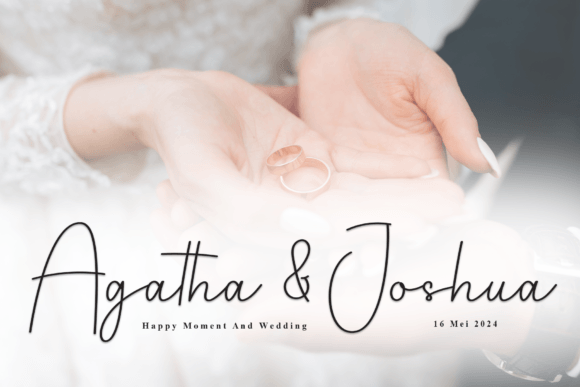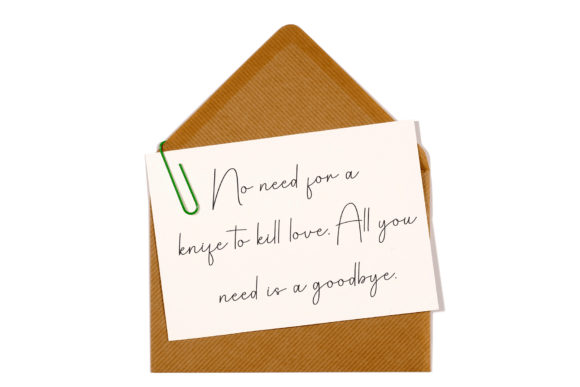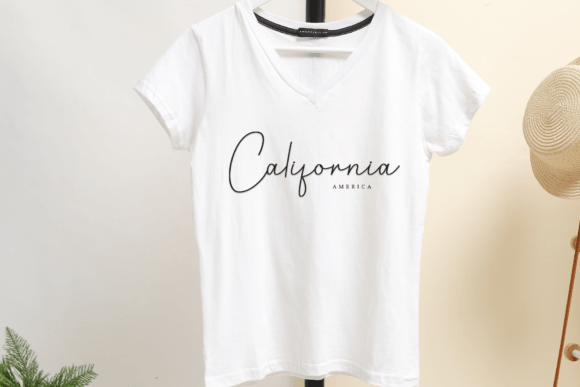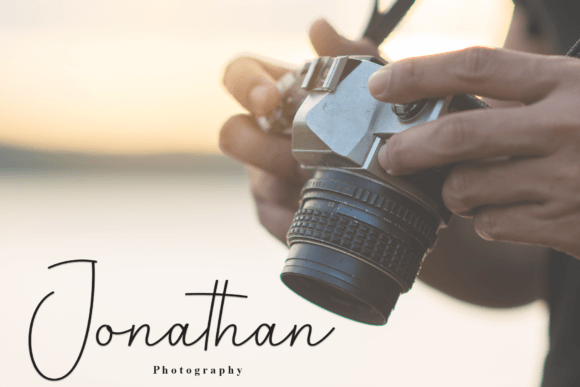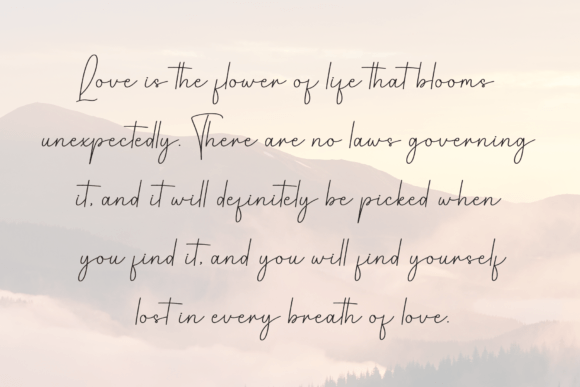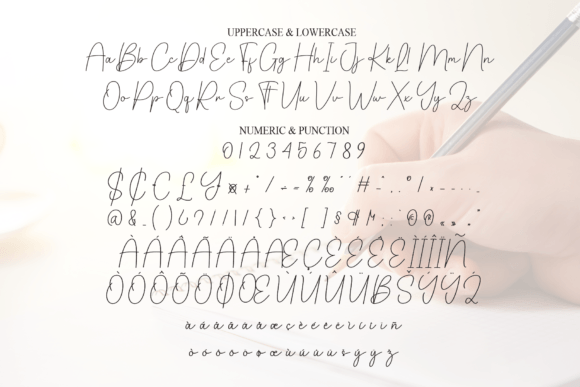
Carmila Signature Font: Elevate Your Designs with Elegant Handwriting
In the world of typography, a well-crafted font can make all the difference in elevating your designs from ordinary to extraordinary. If you’re a designer, crafter, or simply someone who appreciates the art of beautiful writing, you’ll love discovering the Carmila Signature Font. This stunning handwritten font is designed to mimic natural handwriting, bringing an air of elegance and sophistication to any project.
What is Carmila Signature Font?
Carmila Signature is a stylish handwritten font that looks like natural handwriting. It’s elegant and smooth, making it perfect for adding a personal touch to invitations, logos, and social media posts. The letters flow together nicely, giving a classy and modern feel that will set your designs apart from the rest.
Key Features of Carmila Signature Font
- Elegant Handwriting Style: Carmila Signature boasts a beautiful, flowing script that mimics natural handwriting. Its smooth lines and curves create a sophisticated look that’s perfect for high-end designs.
- Natural Flow: The font’s letters are designed to flow together seamlessly, creating a sense of movement and fluidity. This natural flow adds a touch of whimsy and personality to your designs.
- Classy and Modern Feel: Carmila Signature strikes the perfect balance between classic elegance and modern style. Its unique blend of traditional and contemporary elements makes it versatile enough to use in a wide range of design applications.
- Perfect for Invitations and Logos: Whether you’re designing wedding invitations, business logos, or social media graphics, Carmila Signature is the perfect choice. Its elegant, cursive script adds a touch of sophistication and refinement to any design.
Uses for Carmila Signature Font
Carmila Signature is an incredibly versatile font that can be used in a variety of design applications. Here are some ideas to get you started:
- Wedding Invitations: Add a touch of romance and elegance to your wedding invitations with Carmila Signature. Its beautiful, flowing script is perfect for formal and informal wedding designs alike.
- Logos and Branding: Create a lasting impression with Carmila Signature. Its unique blend of elegance and modernity makes it perfect for logos, business cards, and other branding materials.
- Social Media Graphics: Elevate your social media presence with Carmila Signature. Use it to create eye-catching graphics, quotes, and promotional materials that will engage your audience.
- Stationery and Paper Crafts: Add a personal touch to your stationery, journals, and paper crafts with Carmila Signature. Its elegant script is perfect for creating beautiful, handmade designs.
Tips for Using Carmila Signature Font
To get the most out of Carmila Signature, here are some tips to keep in mind:
- Use it as a Title Font: Carmila Signature is perfect for use as a title font. Its elegant script and flowing lines make it ideal for headings, titles, and captions.
- Experiment with Colors: Don’t be afraid to experiment with different colors and textures when using Carmila Signature. Its elegant script looks stunning in a variety of colors, from classic black and white to bold brights and pastels.
- Pair it with Other Fonts: Carmila Signature pairs beautifully with other fonts, especially sans-serif and serif fonts. Experiment with different font combinations to create unique and eye-catching designs.
Carmila Signature Font is a stunning handwritten font that’s perfect for designers, crafters, and anyone who appreciates the art of beautiful writing. Its elegant script, natural flow, and classy feel make it versatile enough to use in a wide range of design applications. Whether you’re creating wedding invitations, logos, social media graphics, or stationery, Carmila Signature is the perfect choice. So why wait? Discover the beauty of Carmila Signature Font today and elevate your designs to new heights!